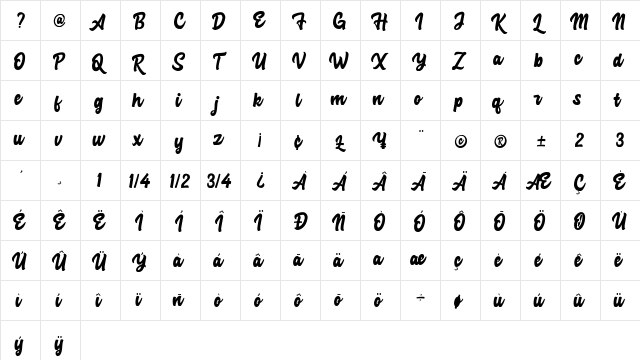
Advocate Script Regular
| Foundry | Mas Anis |
| Designer | Mas Anis |
Design Context for Advocate Script Typeface
Advocate Script brings a calligraphic fluidity to the page — its connecting strokes and expressive curves give it an unmistakably human quality.